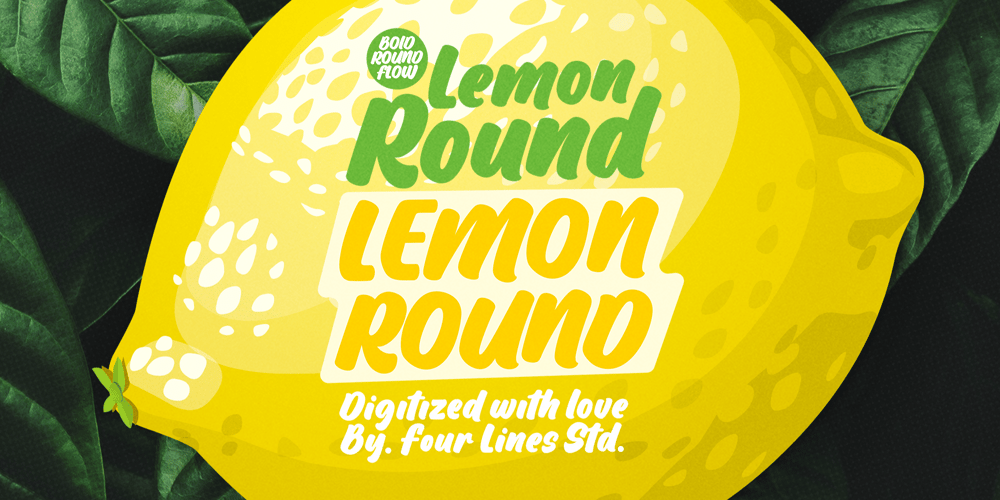
Lemon Round Font Family was designed by Zain Fahroni and published by Four Lines Std. Lemon Round contains 1 styles and family package options. Experience the joy of flowing, cool, and natural typography with Lemon Round Font. Let it become the voice of your brand, capturing attention, and leaving a lasting impression on your target audience. The versatility of this font is allowing you to evoke a range of emotions, from warmth and familiarity to excitement and curiosity.